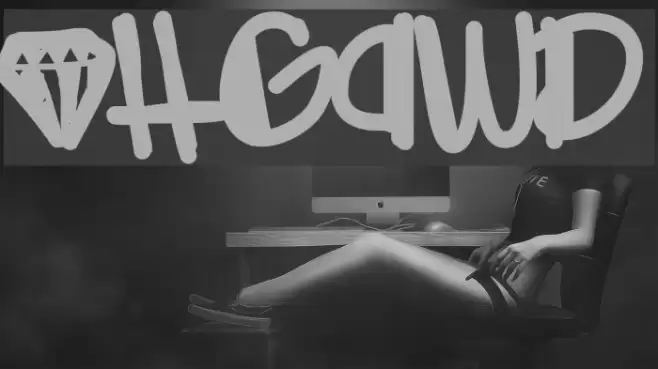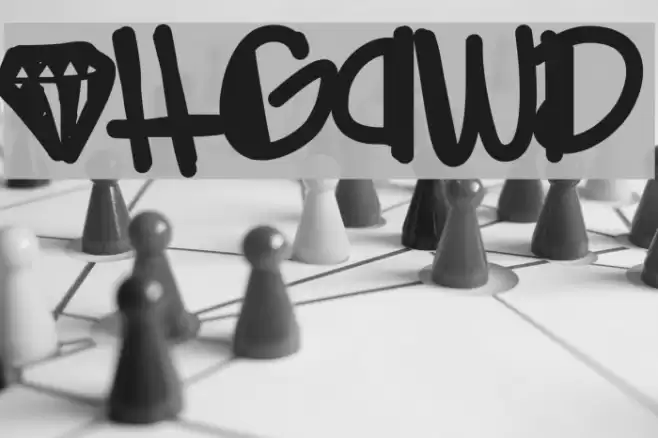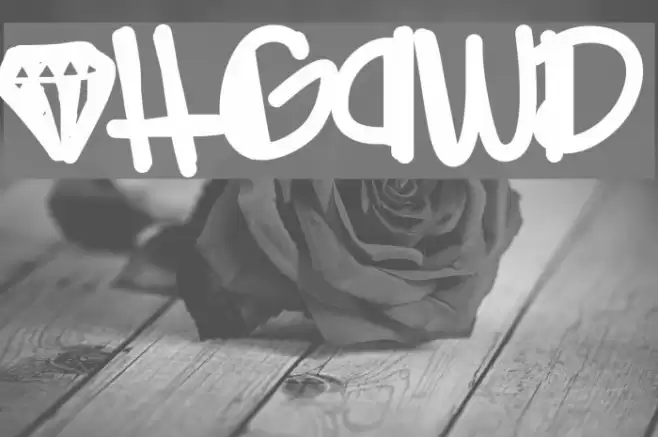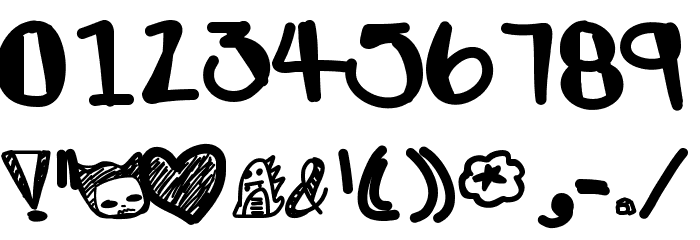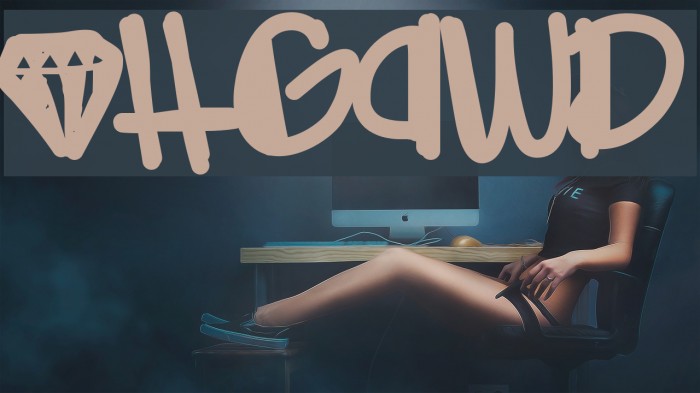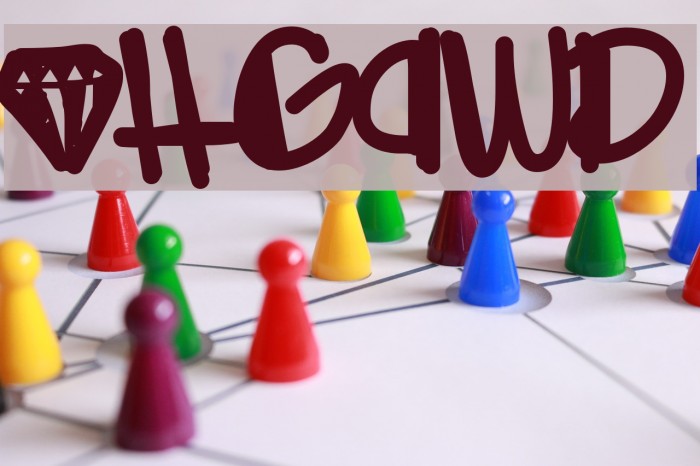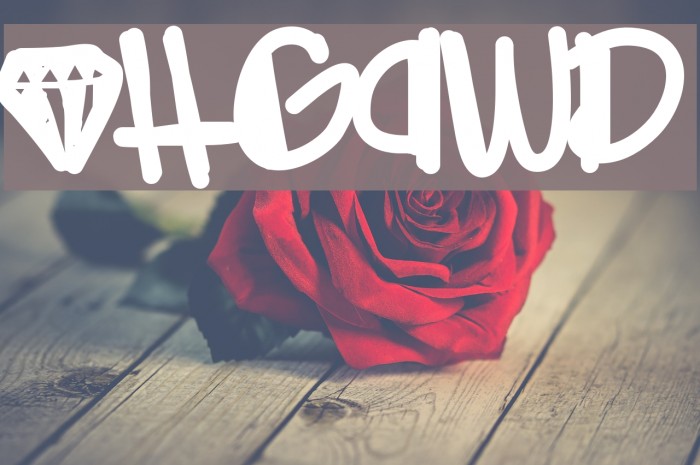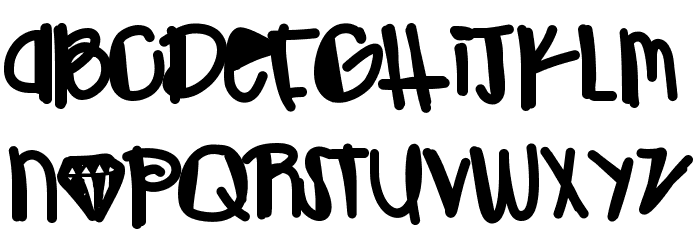
OhGawd Font
OhGawd Description
This font features a bold and playful style with a hand-drawn aesthetic. The characters are thick and rounded, giving them a friendly and approachable appearance. The uppercase and lowercase letters maintain a consistent style, with some letters incorporating unique elements, such as the diamond shape in the letter 'O'. The numbers are similarly bold and maintain the playful theme. Special characters include whimsical symbols like hearts and stars, adding to the font's decorative nature. Overall, this font exudes a sense of fun and creativity, making it suitable for projects that require a lively and informal touch.
A bold, playful, and hand-drawn font with a whimsical and decorative style from Cartoon fonts.
- Proposed Projects: Ideal for children's books, party invitations, playful branding, and creative posters.
- Overall Style: Playful and Creative